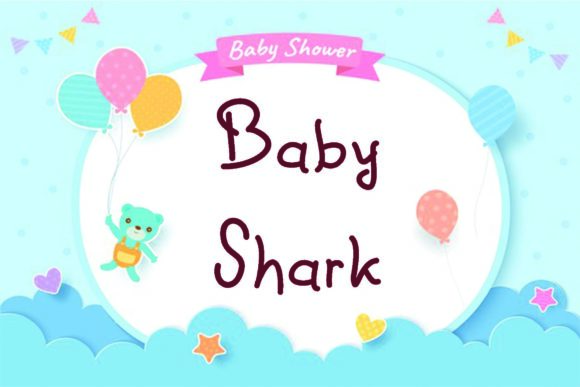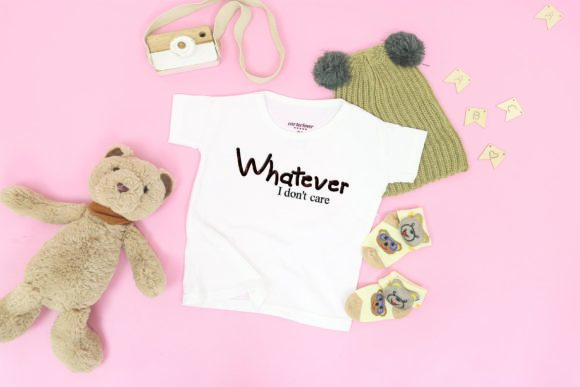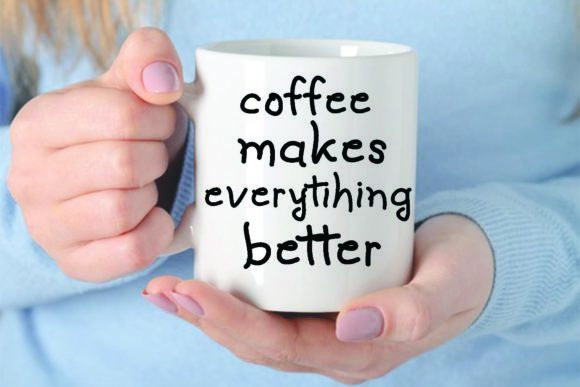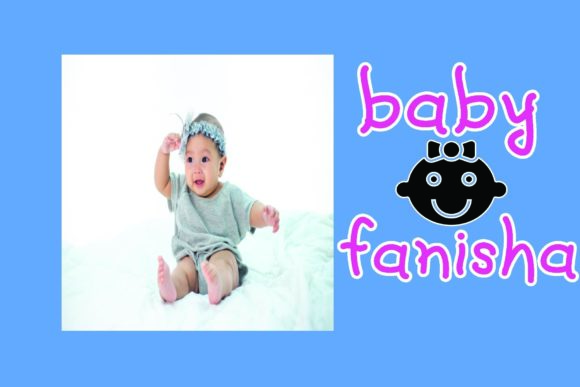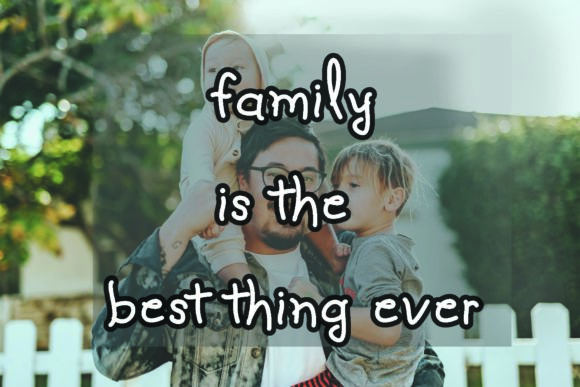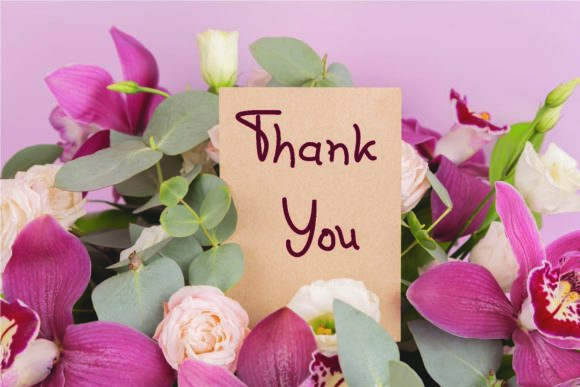
Introduction to Boba Baby Font
Boba Baby is a lovely script font featuring charming, playful characters that seem to dance along the baseline.
Add this font to your most creative ideas, and notice how it makes them stand out .
Key Features of Boba Baby Font
Why Choose Boba Baby Font?